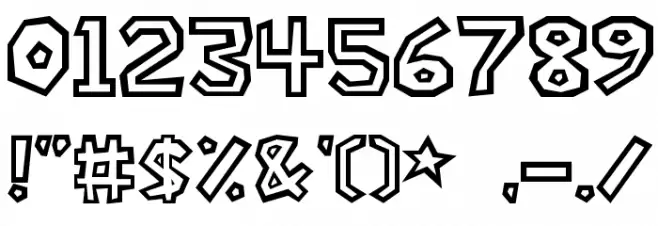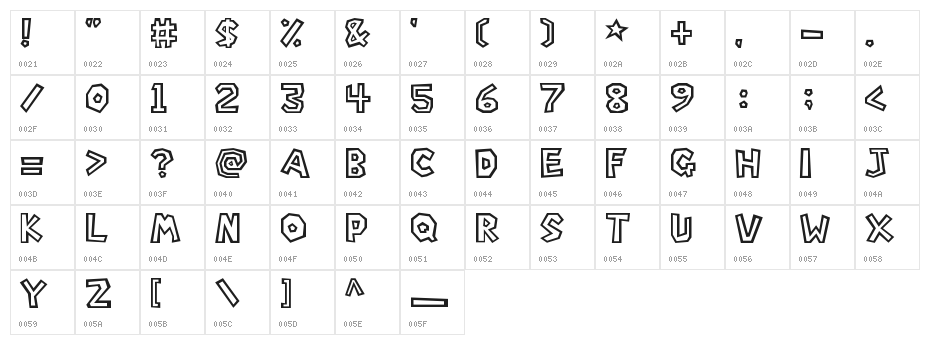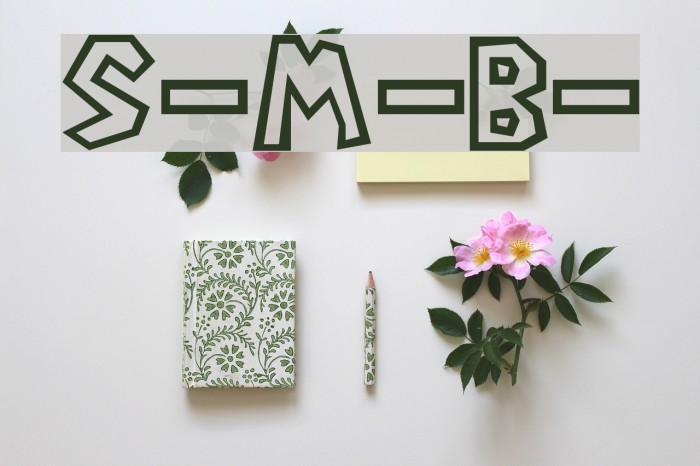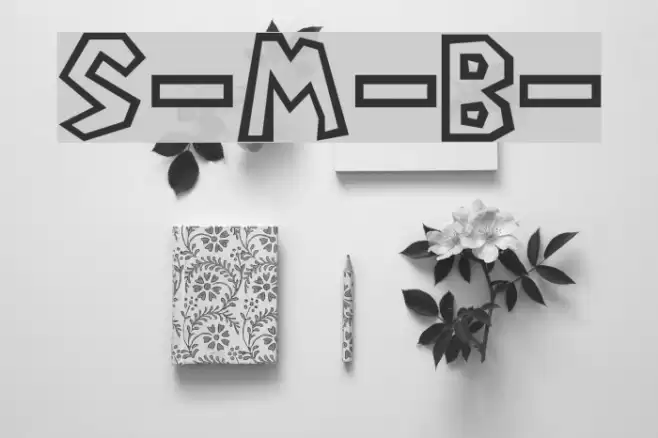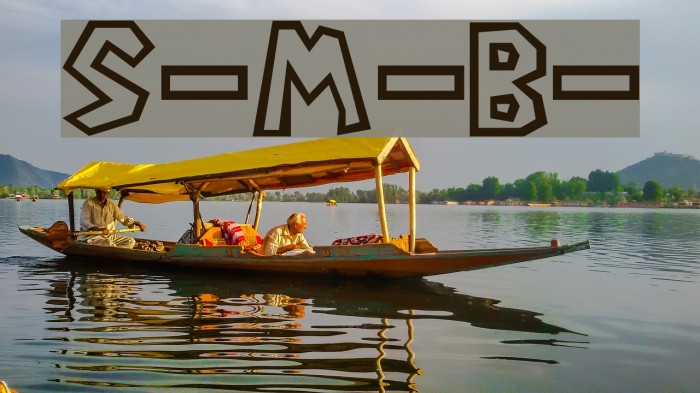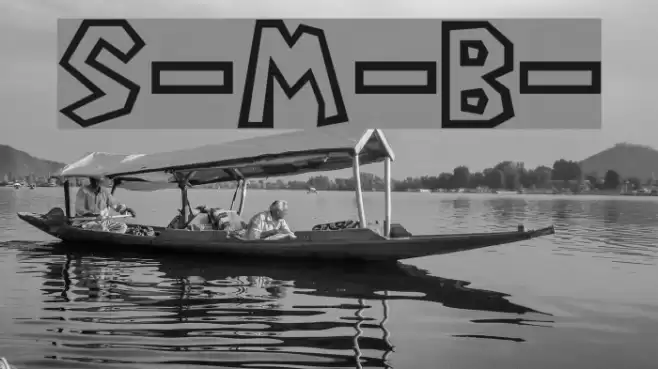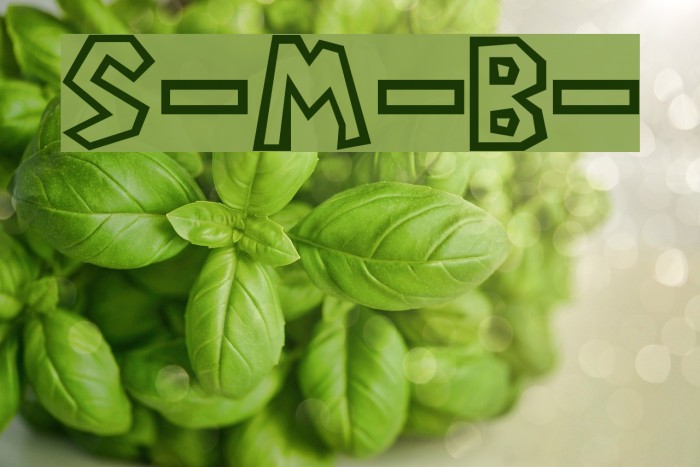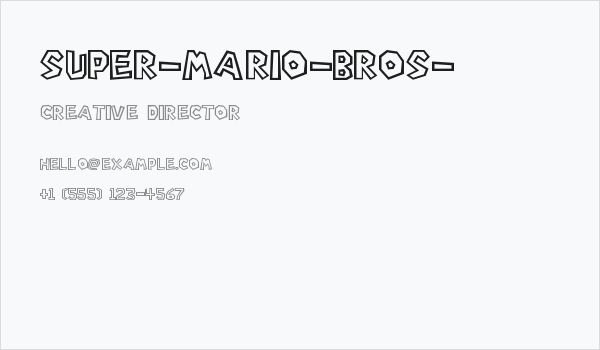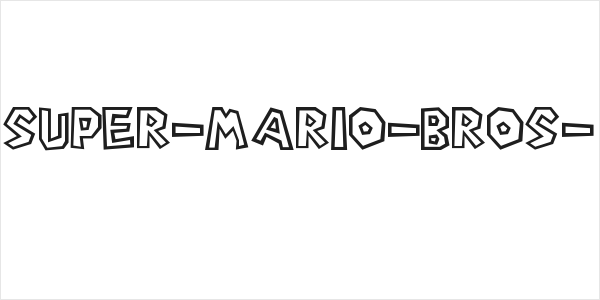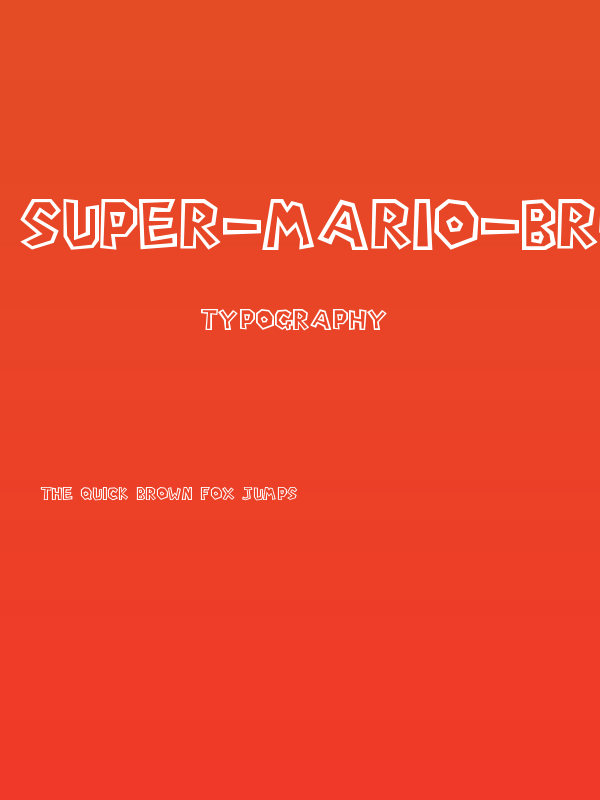
Super-Mario-Bros- Font
Super-Mario-Bros- Description
This font features a bold, playful design with a three-dimensional effect, reminiscent of classic video game aesthetics. The characters are outlined with a thick black border, giving them a striking and dynamic appearance. The letters are angular and geometric, with a blocky structure that adds to the retro feel. The numbers and special characters maintain this style, ensuring consistency across all glyphs. This font is ideal for capturing a sense of nostalgia and fun, making it perfect for projects that aim to evoke a vintage gaming vibe.
Overall StyleVintage
Proposed ProjectsIdeal for video game designs, retro-themed posters, children's book covers, and playful branding.